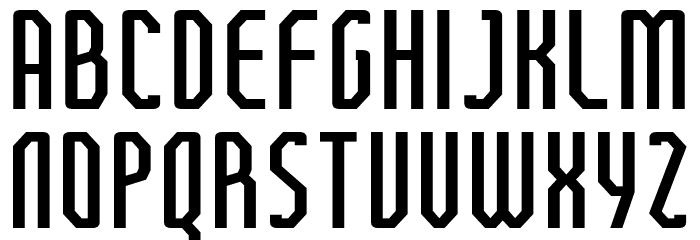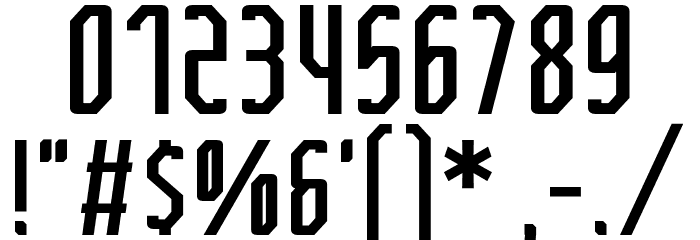
FTBetonItalic Font
This font features a bold and geometric design with a strong, industrial feel. The characters are constructed with straight lines and sharp angles, giving it a modern and robust appearance. The uppercase letters are uniform in height, while the lowercase letters maintain a consistent style, enhancing readability. The numerals are distinct and align well with the overall aesthetic. Special characters are designed to complement the boldness of the font, making it suitable for impactful designs. The font's structure is clean and uncluttered, making it versatile for various applications.
- Font: FTBetonItalic
- Proposed Projects: Ideal for branding, posters, signage, and any project requiring a strong, modern look.